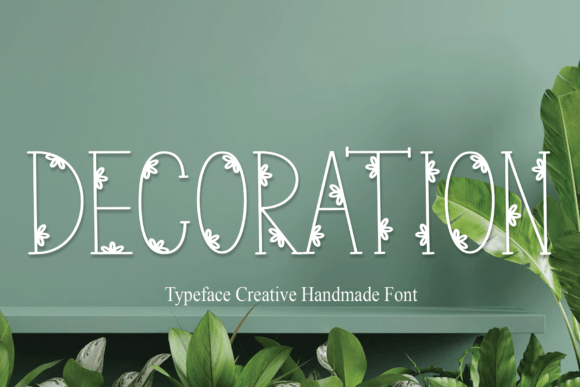
In the realm of typography, there exists a font family that exudes charm and elegance, capturing the hearts of those seeking to add a touch of whimsy to their creative endeavors. Allow us to introduce Decoration, a decorative font family designed to elevate your designs to new heights of enchantment.
This exquisite font family is the brainchild of William Jhordy, a visionary typographer who poured his heart and soul into crafting each letterform with meticulous precision and artistic flair. Decoration is a true testament to his mastery, showcasing a harmonious blend of delicate curves, playful flourishes, and captivating intricacies that dance across the page.
With its alluring handwritten style, Decoration possesses an undeniable charm that invites you to embrace the joy and playfulness of life. Whether you're crafting wedding invitations, cards, or any other design that yearns for a touch of whimsy, Decoration stands ready to transform your words into captivating works of art.
Immerse yourself in the world of Decoration, and discover the endless possibilities that await. Let your imagination soar as you explore a myriad of design applications, from heartfelt love letters and heartwarming invitations to playful posters and whimsical branding. With Decoration as your creative companion, you'll find endless opportunities to express yourself in ways that captivate and inspire.
Indulge in the beauty of Decoration, and let your designs radiate with a touch of magic. Allow the gentle curves and enchanting flourishes to weave their spell, transforming ordinary words into captivating expressions of love, joy, and creativity. With Decoration, every design becomes a celebration of life's most cherished moments.
Unlock the power of Decoration today, and embark on a creative journey that will leave an enduring legacy of beauty and wonder. Let your designs blossom with the charm and elegance of this captivating font family, and watch as they capture the hearts and imaginations of all who behold them.